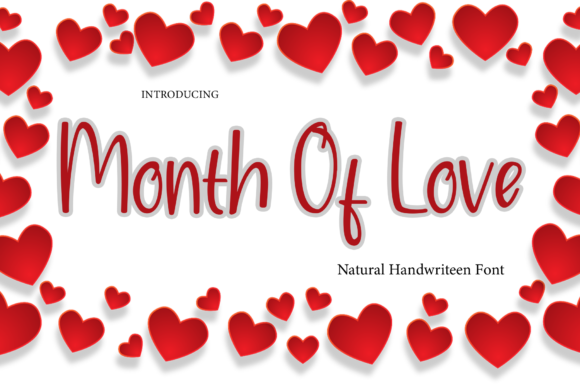
Step into a world of elegance and timeless beauty with **Month of Love**, a captivating script font that evokes a sense of romance and sophistication. Designed by the renowned PAYJHOshop, Month of Love is not just a font, it's an artistic expression, a symphony of curves and strokes that dances across your screen. Its contemporary atmosphere and impeccable form, inspired by classic calligraphy, will add a touch of grace and charm to all your creative endeavors.
Month of Love is an ideal choice for those seeking to elevate their designs with a touch of timeless elegance. Whether you're a designer crafting a stunning website, a blogger sharing your thoughts with the world, or a content creator seeking to captivate your audience, Month of Love will bring your words to life with its enchanting presence.
This versatile script font can seamlessly adapt to a myriad of design projects, from wedding invitations and love letters to elegant logos and social media posts. Its balanced and varied strokes ensure that every letter, every word, and every sentence will flow effortlessly, creating a visual harmony that is both pleasing to the eye and captivating to the soul.
With Month of Love, you'll discover a font that is both aesthetically stunning and functionally versatile. Its characters dance and intertwine, creating a captivating visual experience that draws the reader in and holds their attention. Whether you're designing a website that exudes romance, creating a logo that speaks of sophistication, or crafting a social media post that radiates charm, Month of Love will elevate your work to new heights.
Immerse yourself in the world of Month of Love, and let your creativity soar. Experience the joy of transforming ordinary words into works of art, as this elegant script font adds a touch of magic to your designs. Embrace the beauty of timeless calligraphy, and watch as your projects blossom into masterpieces that leave a lasting impression.
**Month of Love: The Epitome of Elegance and Timeless Beauty.**